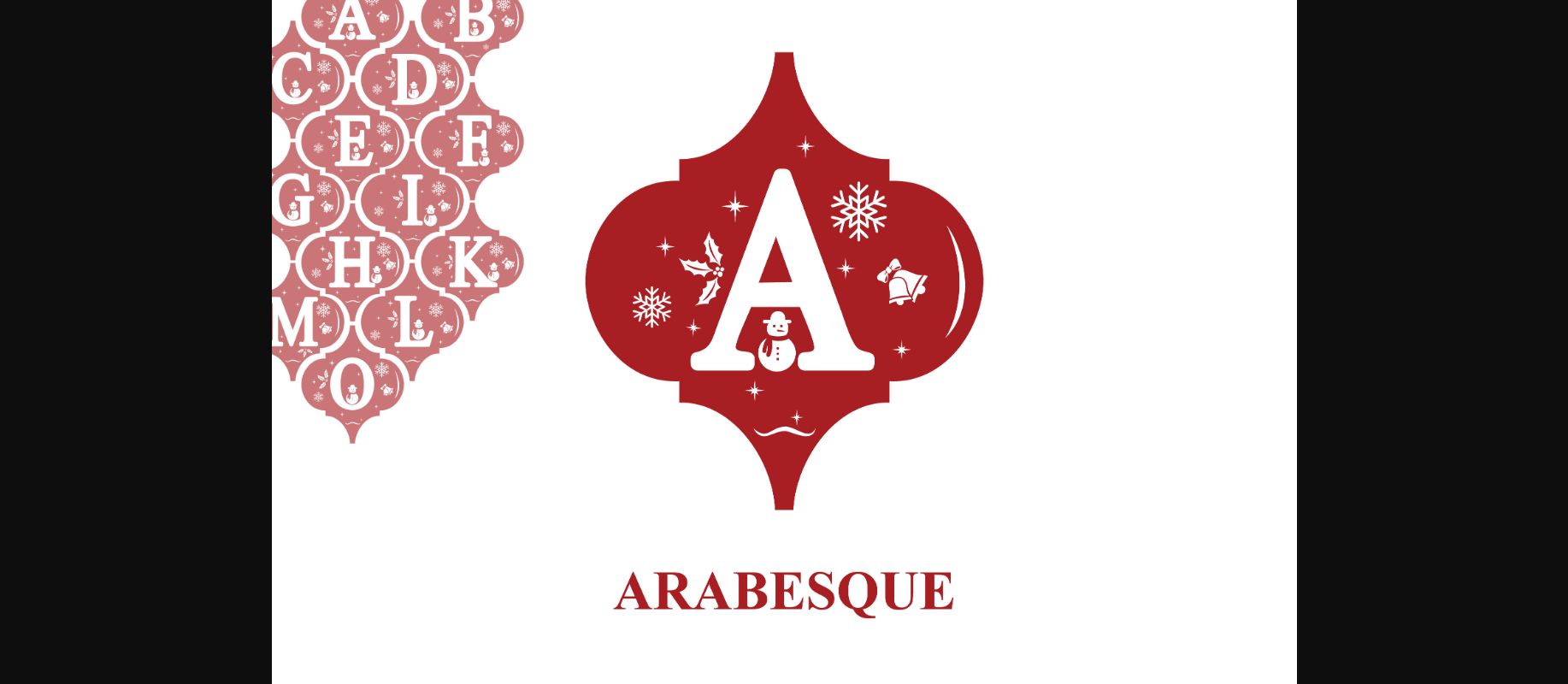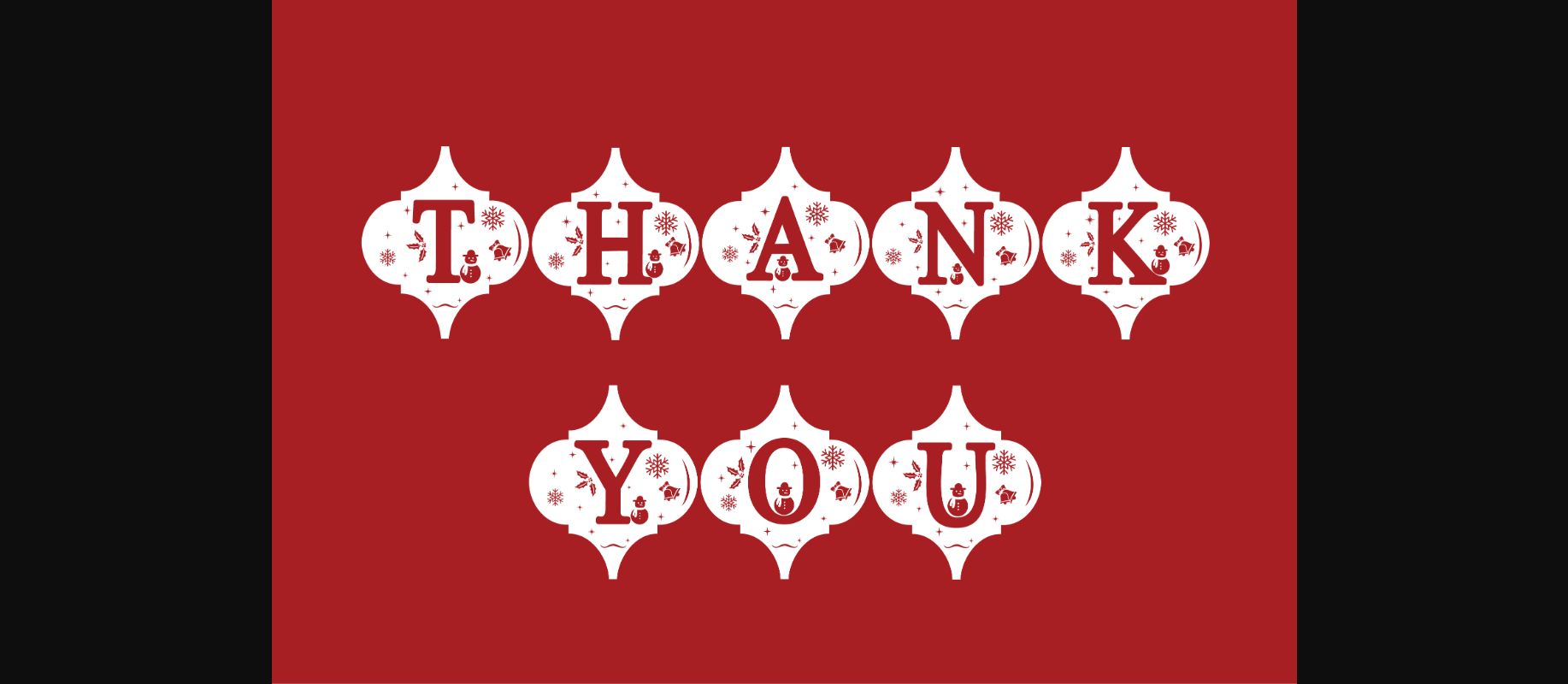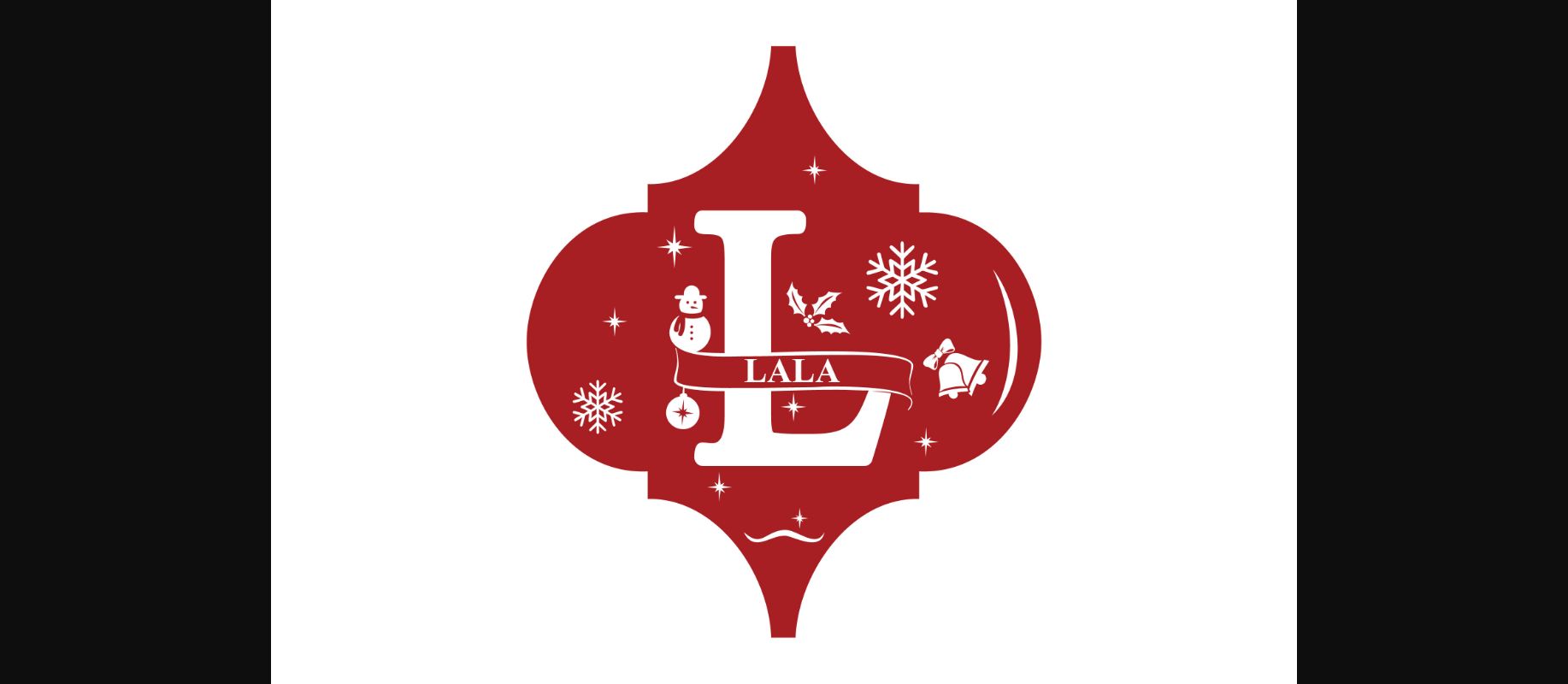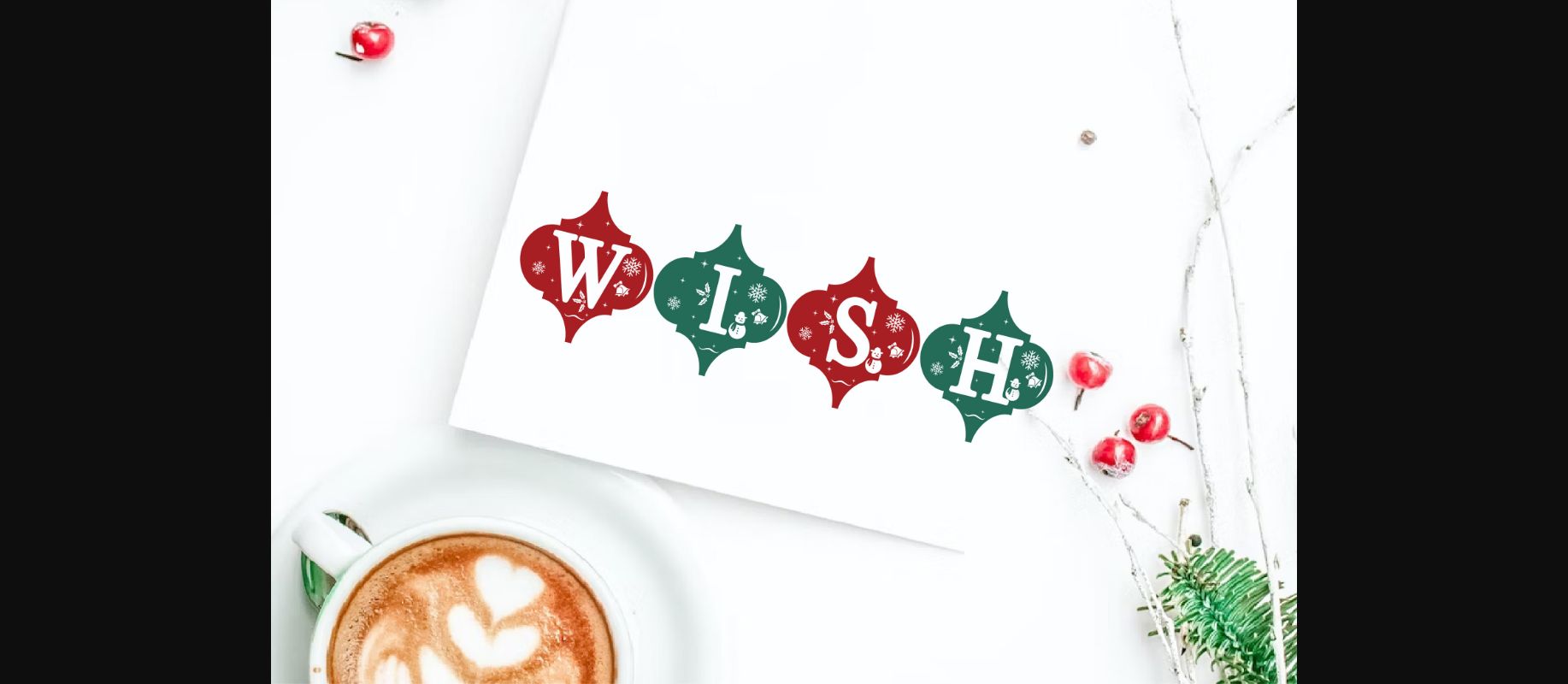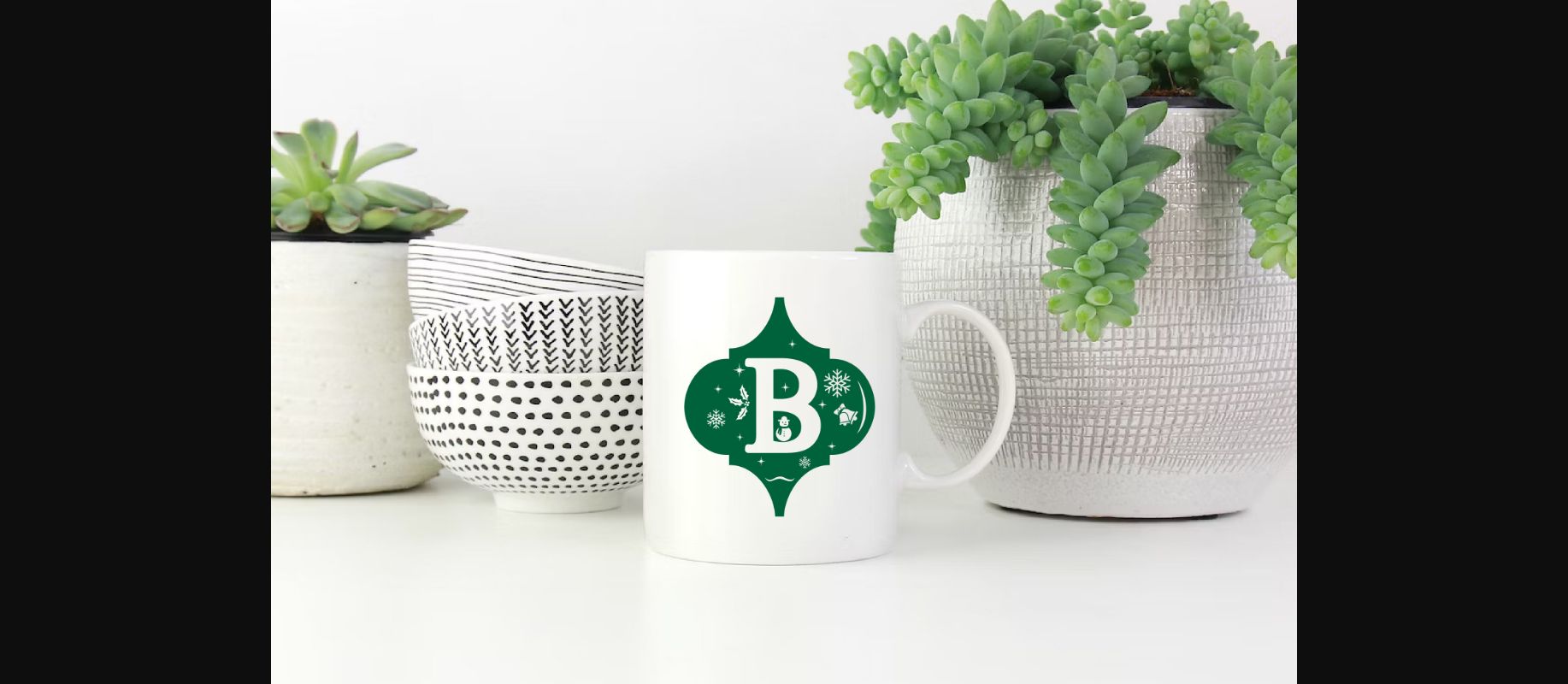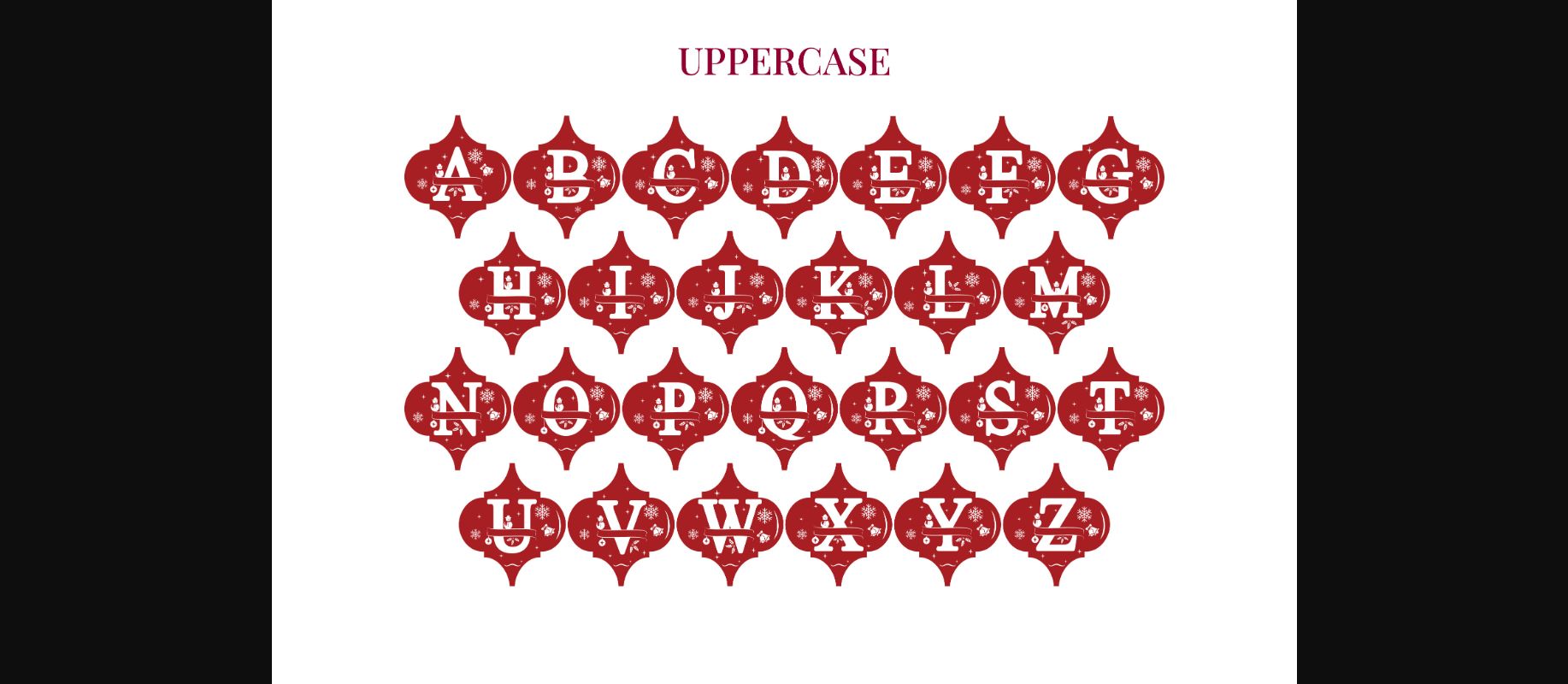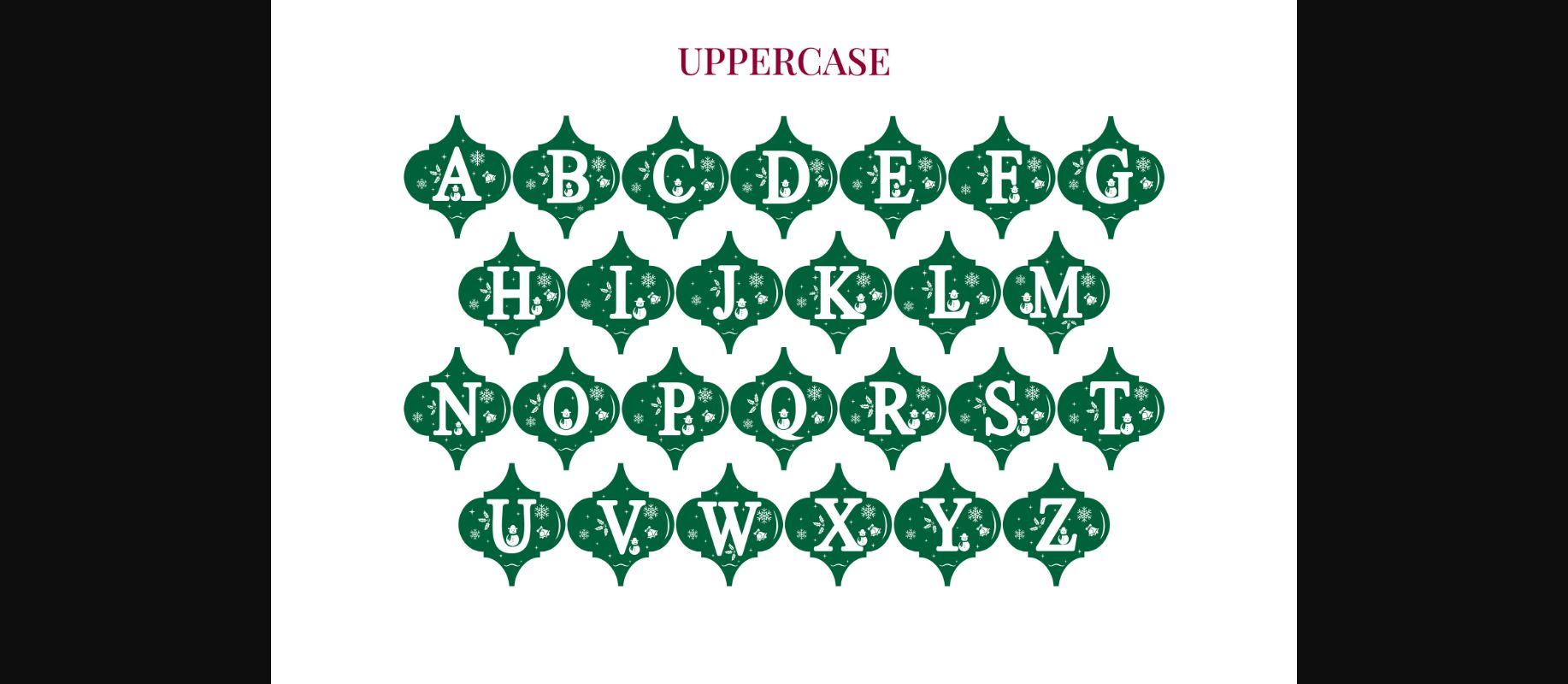
Arabesque Christmas Font
About Arabesque Christmas Font
Arabesque christmas is a cute and unique decorative font with an amazing look for Christmas designs, shirts, crafts, farmhouse decor, SVG designs, craft projects, Holiday designs, and more.